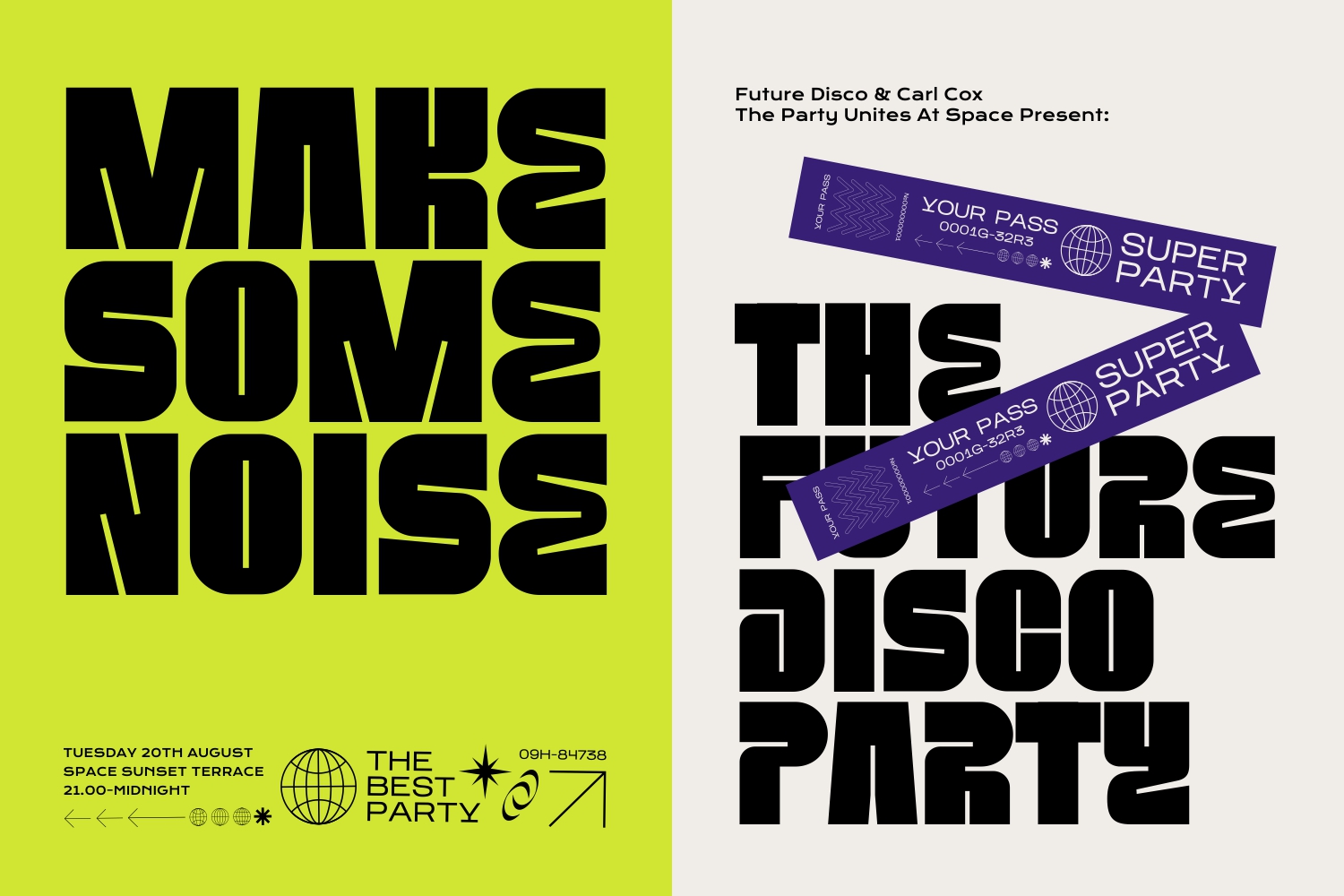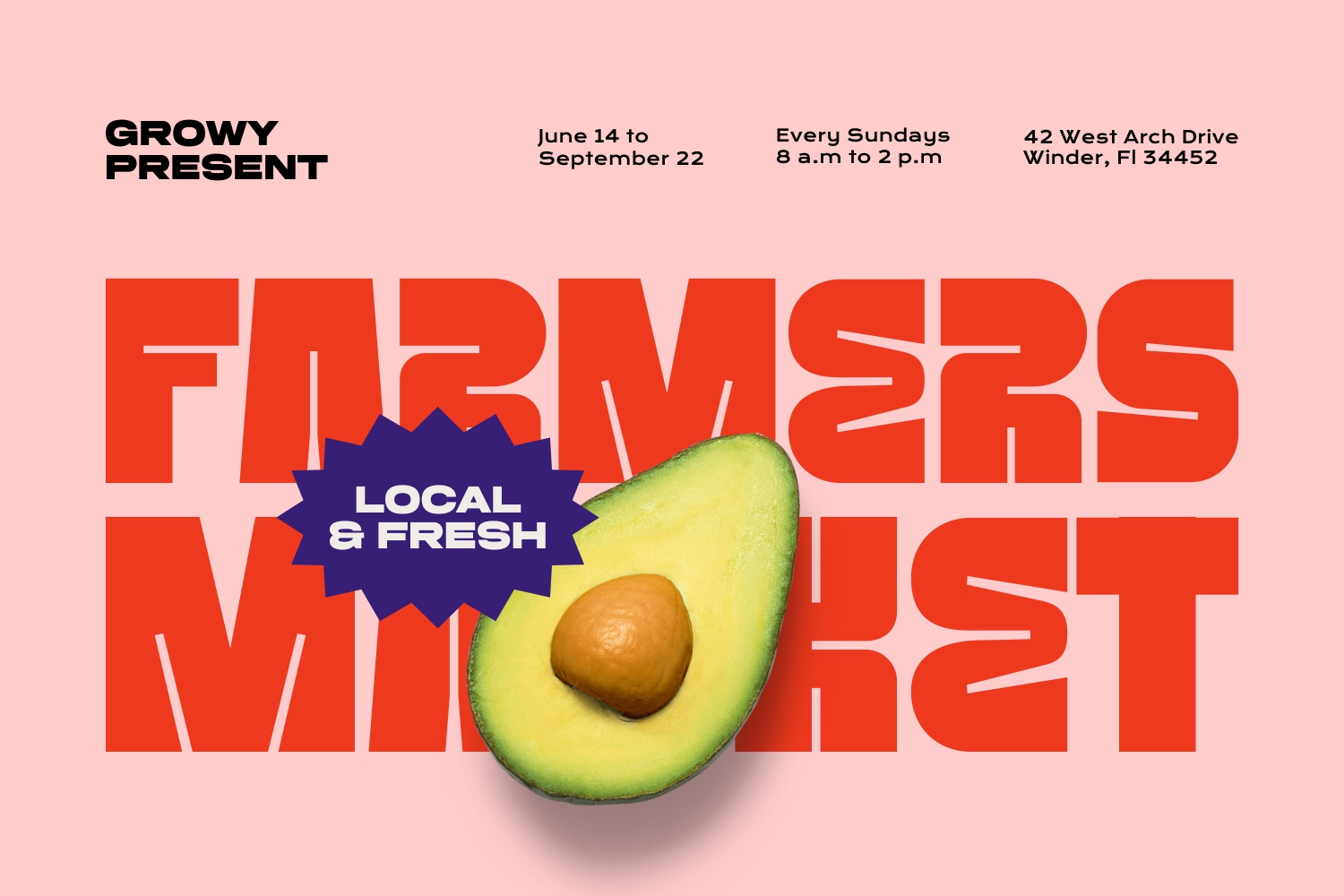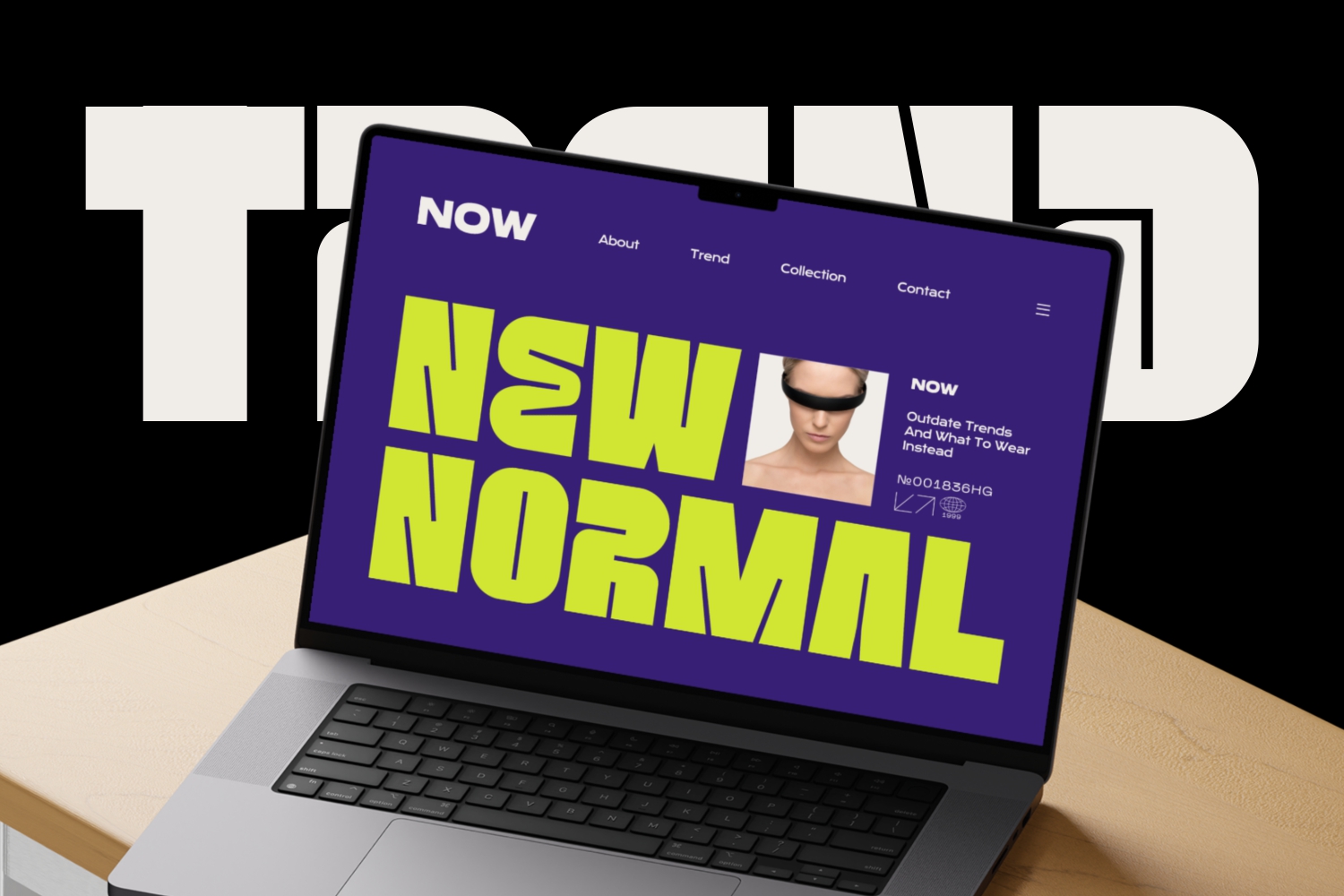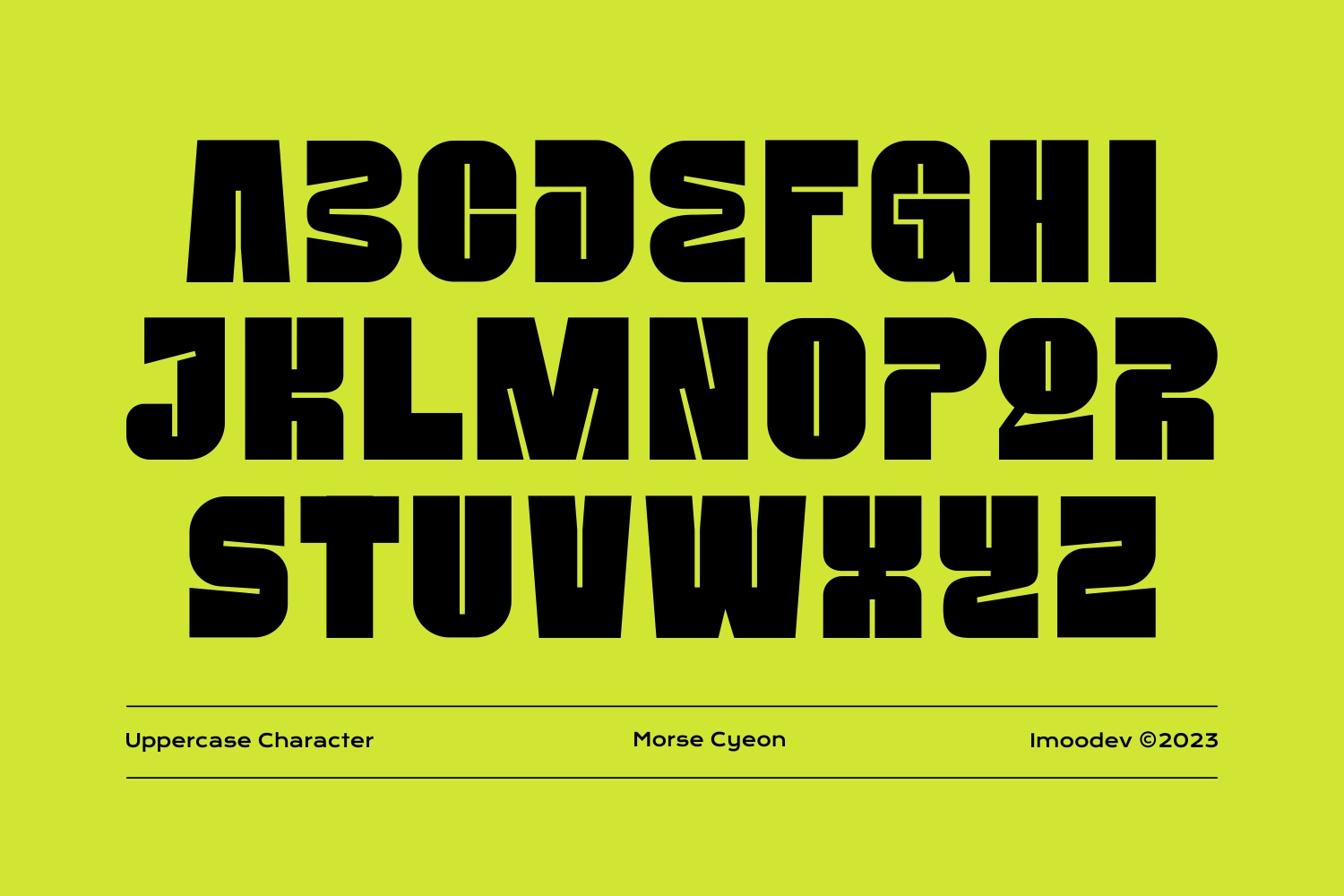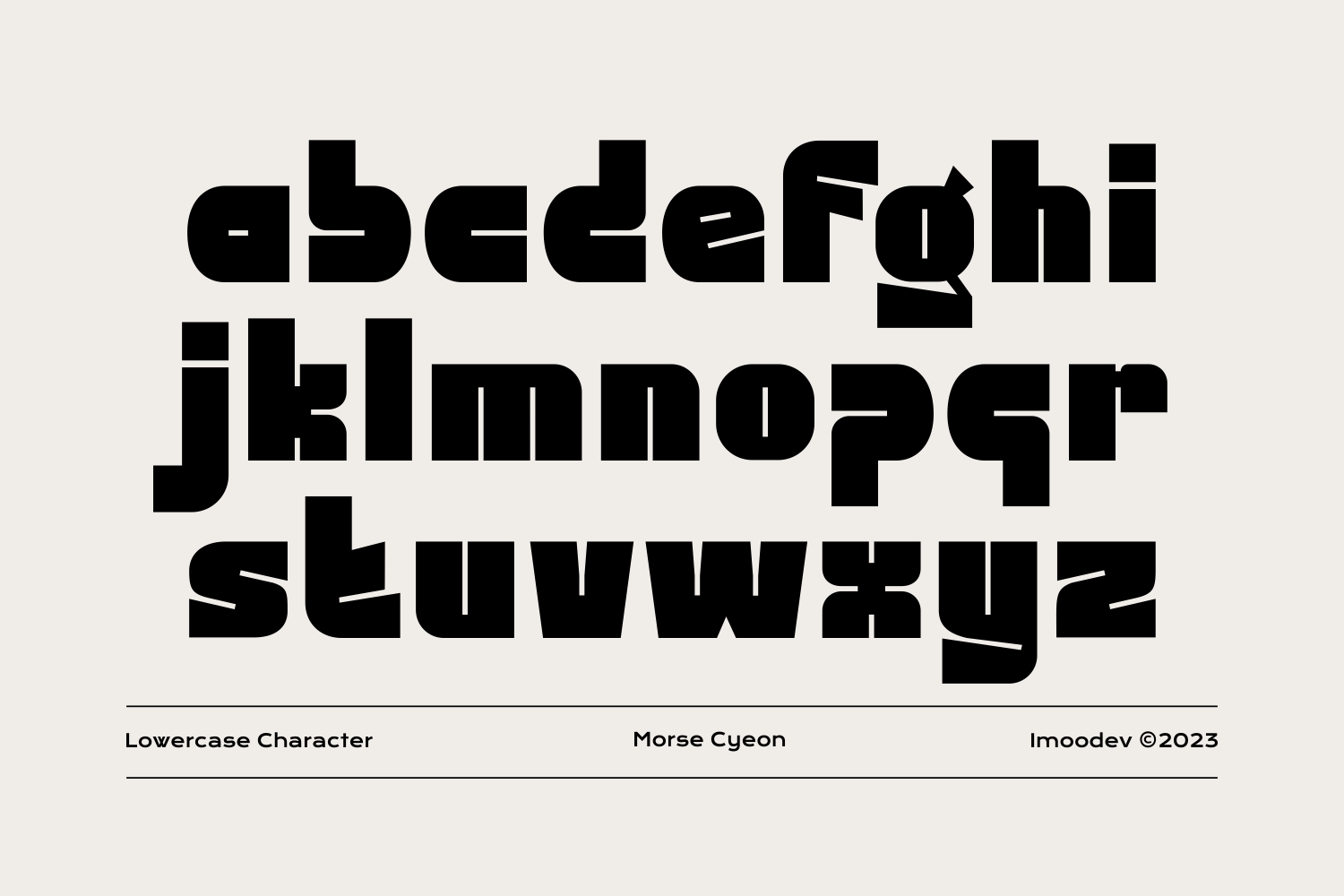
Morse Cyeon is a bold and experimental display font that commands attention with its unique geometric cuts and modern letterforms. Designed for maximum visual impact, this font blends retro-futuristic vibes with a contemporary edge, making it perfect for event posters, branding, music covers, and fashion campaigns. Its chunky, high-contrast shapes convey strength, confidence, and an unmistakable personality that will make any design pop.
With its distinct uppercase, lowercase, numerals, and symbols, Morse Cyeon offers creative flexibility for both digital and print applications. Whether you’re crafting vibrant party flyers, stylish website headers, or bold packaging designs, this font delivers a powerful statement. Its versatile style pairs well with vibrant colors and minimal layouts, giving designers the freedom to create visuals that are both edgy and memorable.